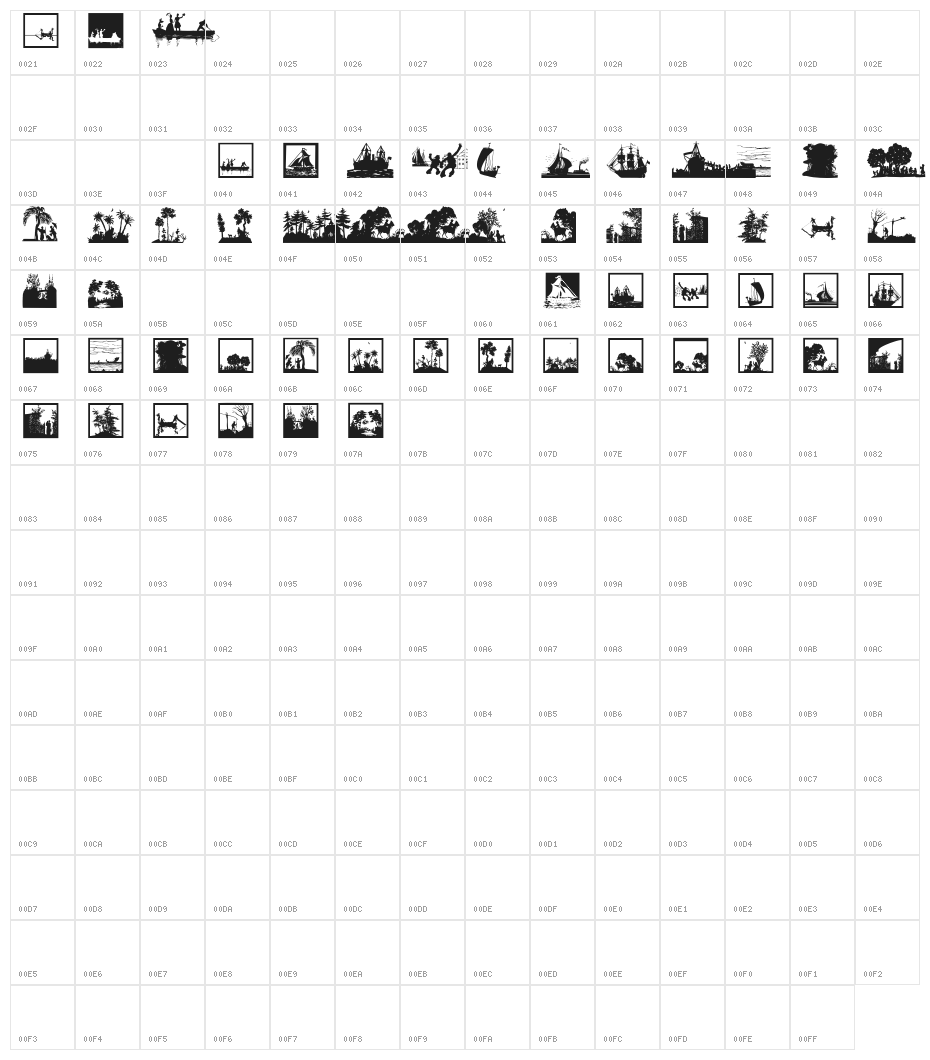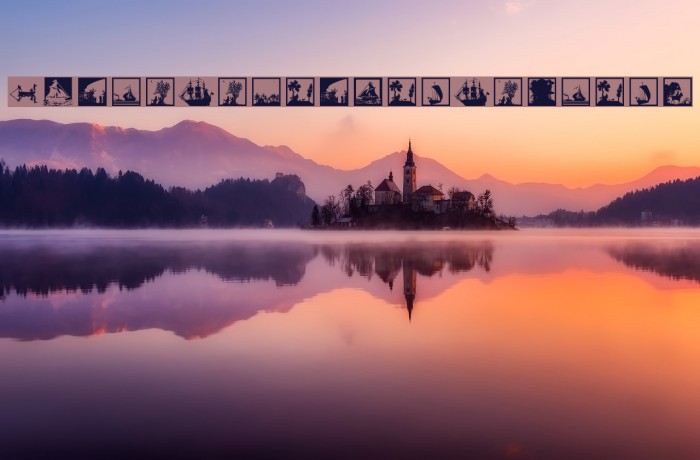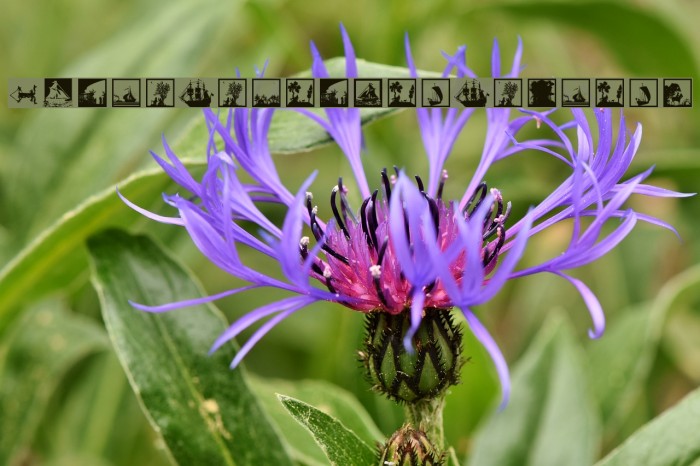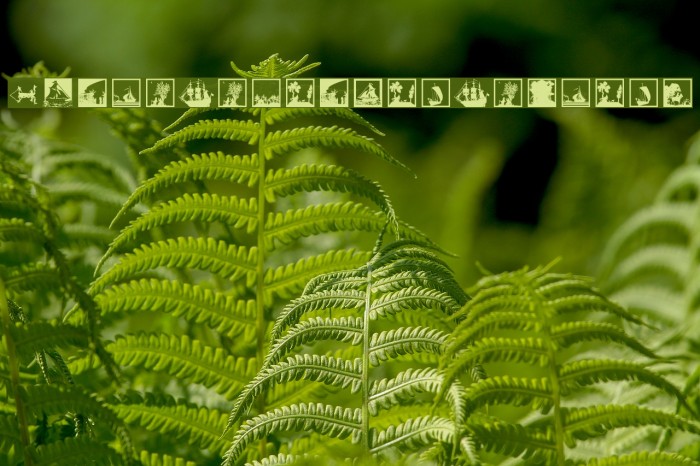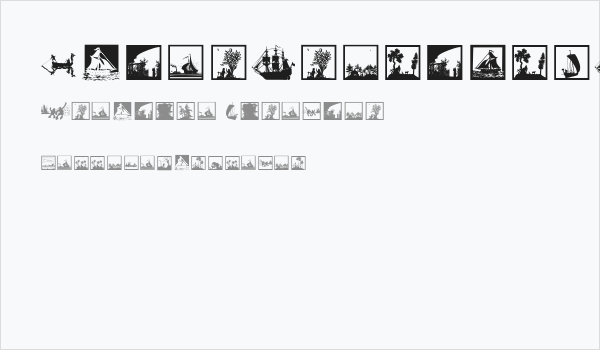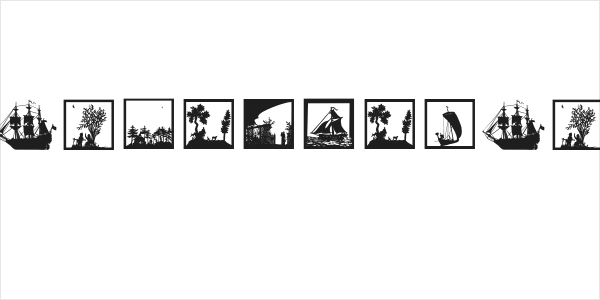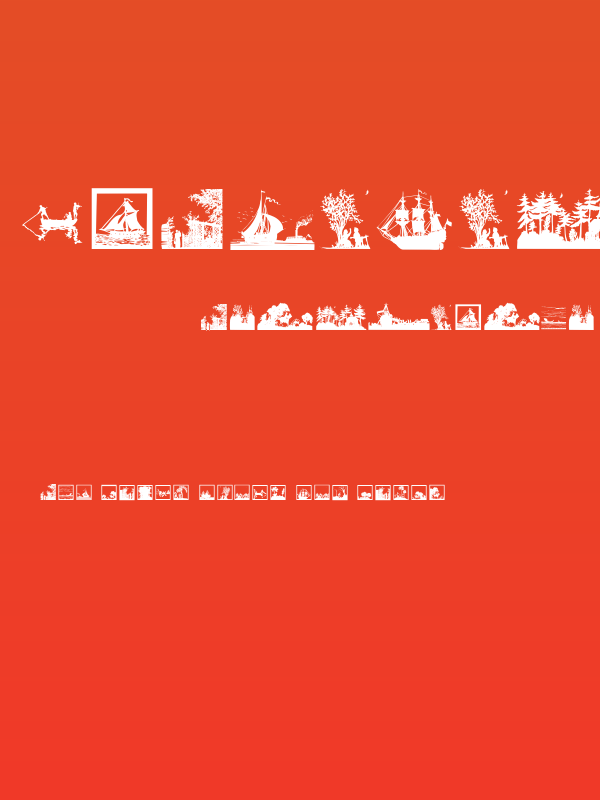
WaterFrontAndFriends Font
WaterFrontAndFriends Description
A decorative display font featuring intricate black-and-white silhouette illustrations of waterfront scenes, boats, people, and trees, with each character represented by a unique pictorial design rather than traditional letterforms.
| Overall Style | Decorative, Artistic, Thematic |
| Use Case | Logos, Headlines, Posters, Artistic projects |
| Proposed Projects | Book covers, event posters, themed invitations, art projects, branding for waterfront businesses, educational materials. |